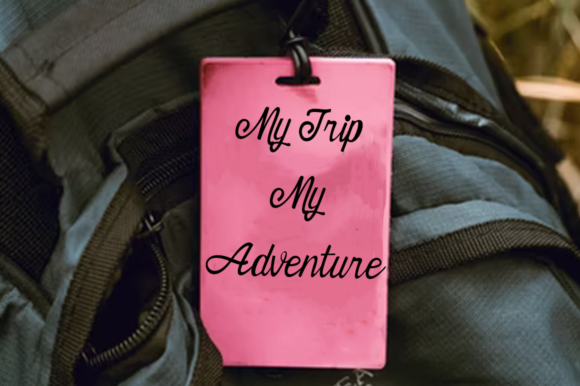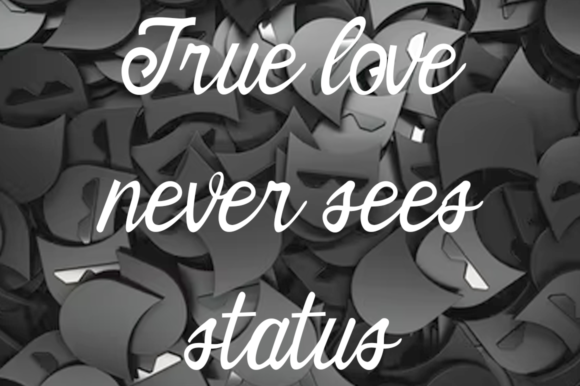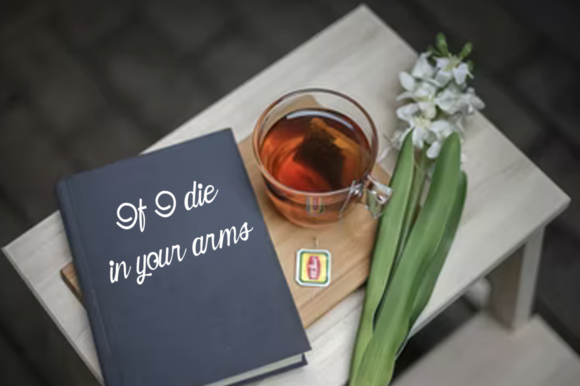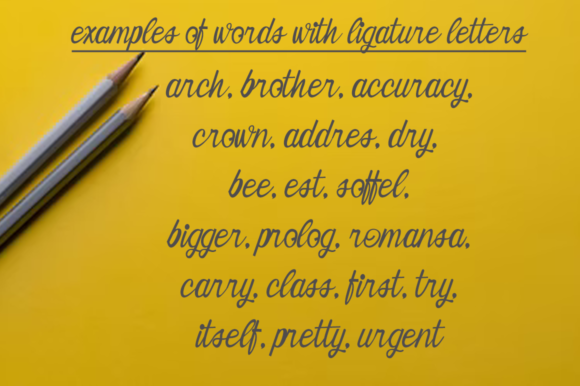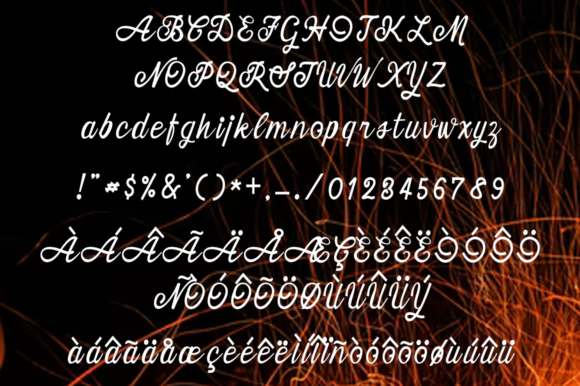
Addaro Font: A Timeless Handwritten Font for Creative Designs
Are you a designer or crafter looking for a font that can add a touch of elegance and sophistication to your creative projects? Look no further than the Addaro Font. This lovely and timeless handwritten font is perfect for creating eye-catching logos, branding, and quotes that will leave a lasting impression on your audience.
What makes Addaro Font special?
Addaro Font is a beautifully crafted handwritten font that exudes a sense of warmth and personality. Its unique and elegant design makes it an excellent choice for a wide range of creative projects, from logos and branding to quotes and social media graphics. Whether you’re a professional designer or a crafty DIY enthusiast, Addaro Font is sure to become a favorite in your font collection.
Key Features of Addaro Font
- Handwritten design: Addaro Font features a beautiful handwritten design that is both elegant and approachable.
- PUA encoded: This font is PUA (Private Use Area) encoded, which means you can access all of the glyphs and swashes with ease.
- Easily accessible glyphs and swashes: With PUA encoding, you can easily access all of the font’s glyphs and swashes using your favorite design software.
- Multilingual support: Addaro Font supports multiple languages, making it a great choice for designers and crafters who work with international clients or want to create content for a global audience.
Use Cases for Addaro Font
Addaro Font is a versatile font that can be used for a wide range of creative projects, including:
- Logo design: Create a memorable and eye-catching logo for your business or brand using Addaro Font.
- Branding: Use Addaro Font to create a consistent visual identity for your brand across all marketing materials.
- Quotes and social media graphics: Addaro Font is perfect for creating inspiring quotes and social media graphics that will engage your audience.
- Stationery and invitations: Use Addaro Font to create beautiful stationery, invitations, and other paper goods.
Why Choose Addaro Font?
With so many fonts available, why choose Addaro Font? Here are just a few reasons why designers and crafters love this font:
- Unique and elegant design: Addaro Font features a unique and elegant design that will set your creative projects apart from the crowd.
- Easily accessible glyphs and swashes: The PUA encoding of Addaro Font makes it easy to access all of the glyphs and swashes, saving you time and effort.
- Multilingual support: Addaro Font supports multiple languages, making it a great choice for designers and crafters who work with international clients or want to create content for a global audience.
- Timeless design: Addaro Font has a timeless design that will remain relevant for years to come, making it a great investment for your font collection.
In conclusion, Addaro Font is a lovely and timeless handwritten font that is perfect for creating eye-catching logos, branding, and quotes. With its unique and elegant design, PUA encoding, and multilingual support, Addaro Font is a versatile font that can be used for a wide range of creative projects. Whether you’re a professional designer or a crafty DIY enthusiast, Addaro Font is sure to become a favorite in your font collection.